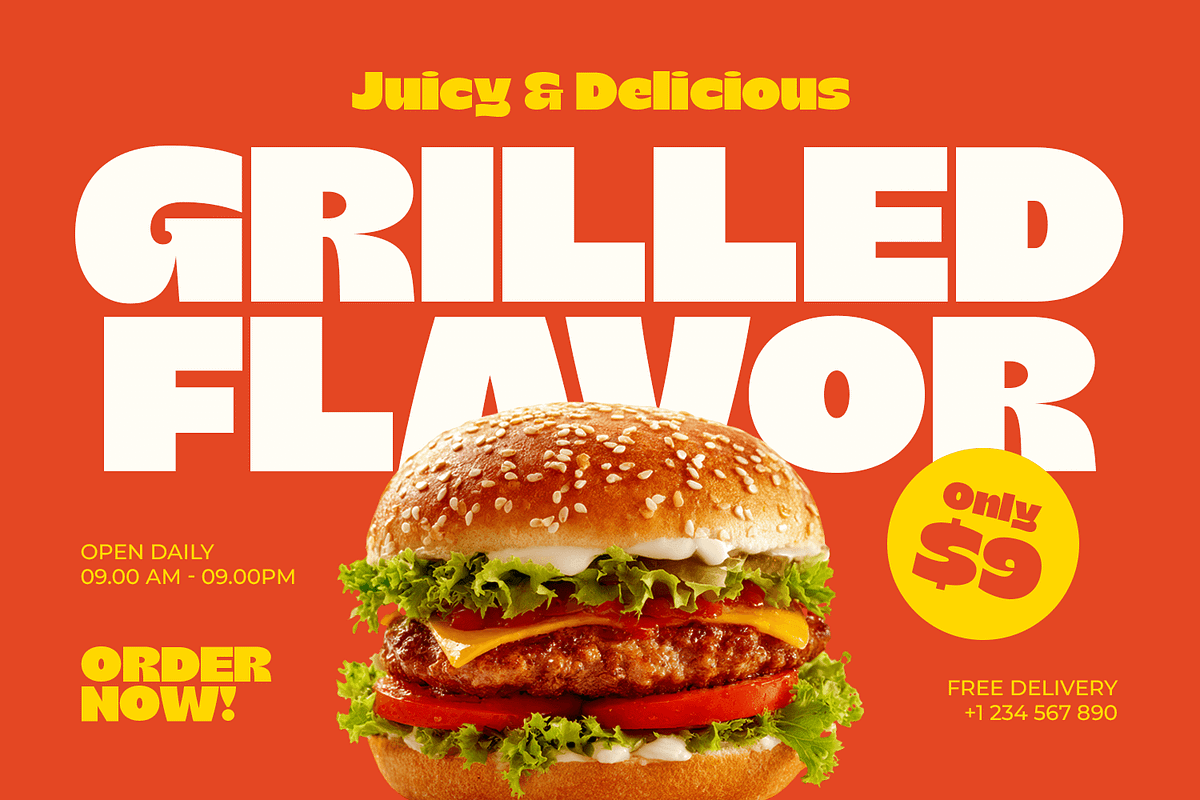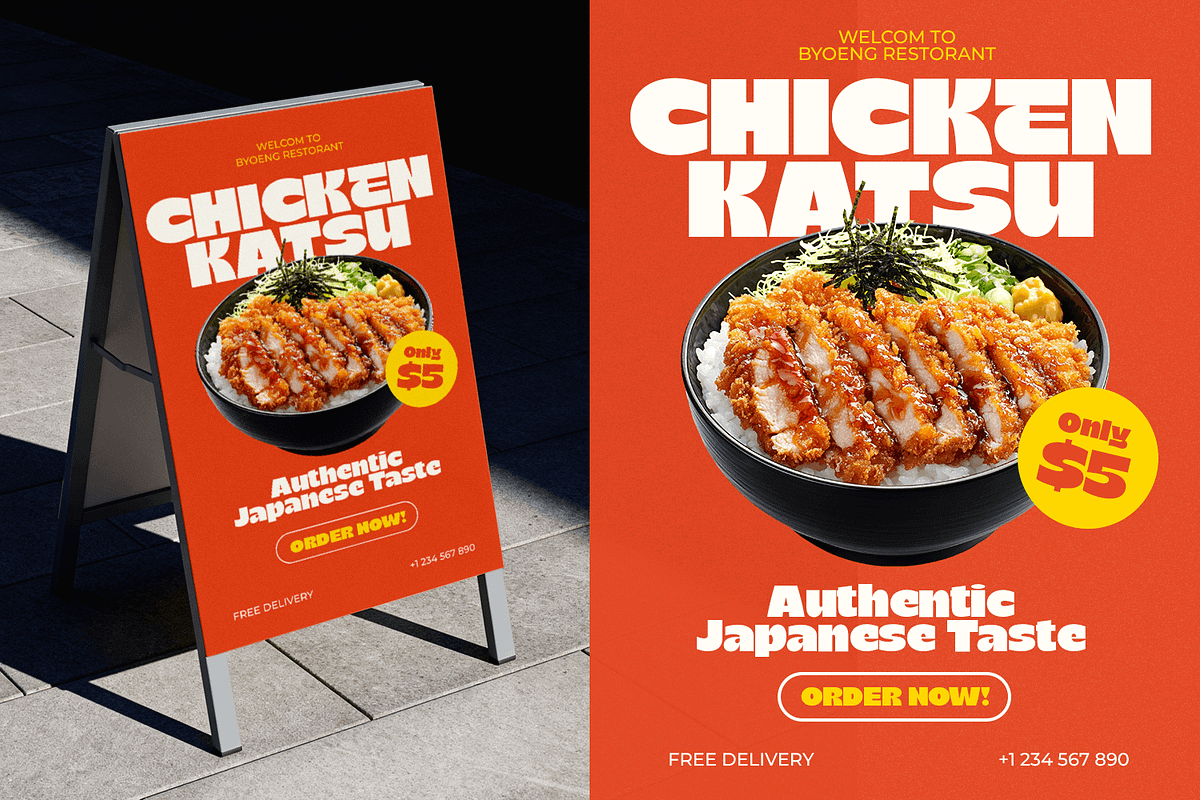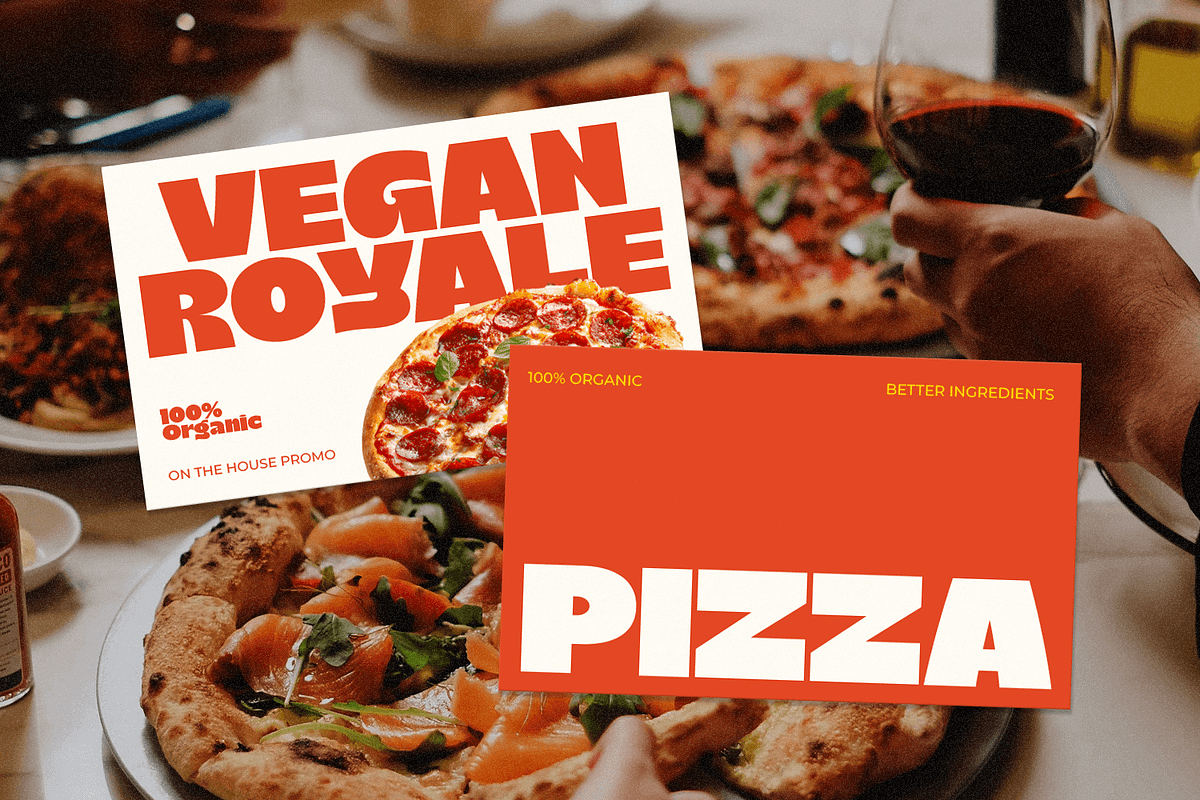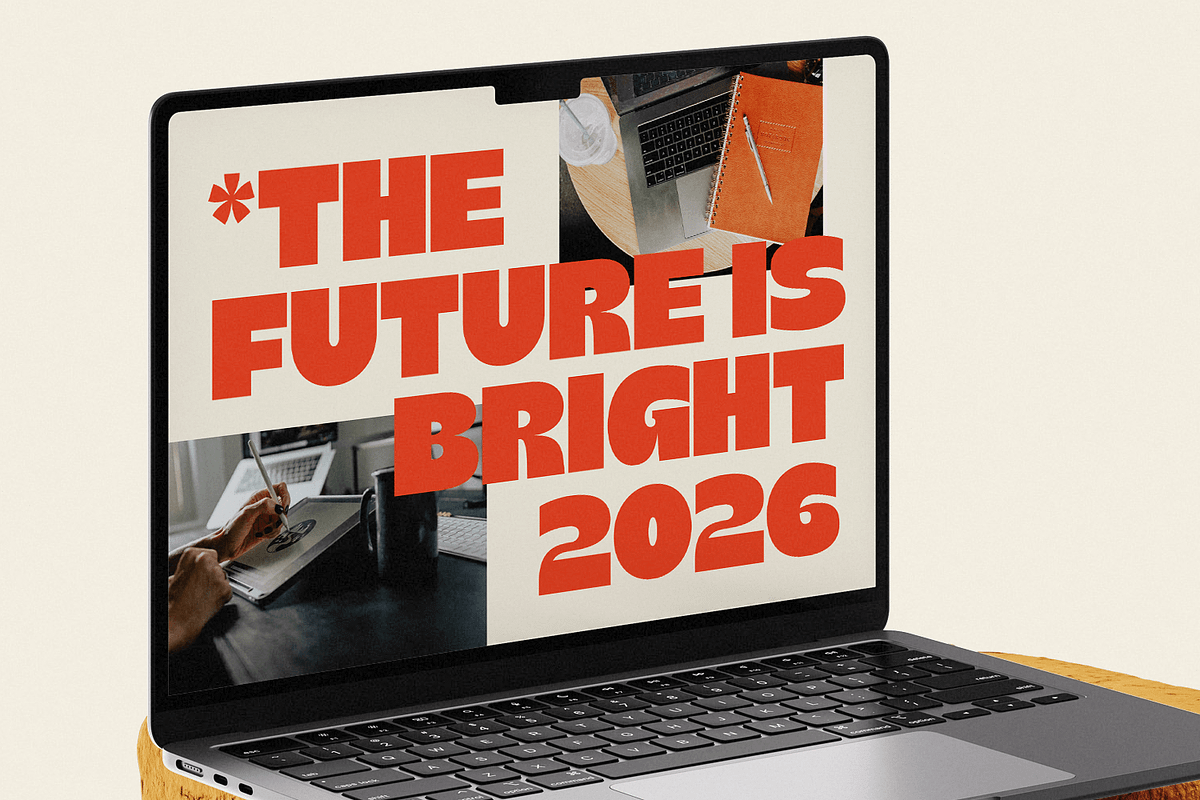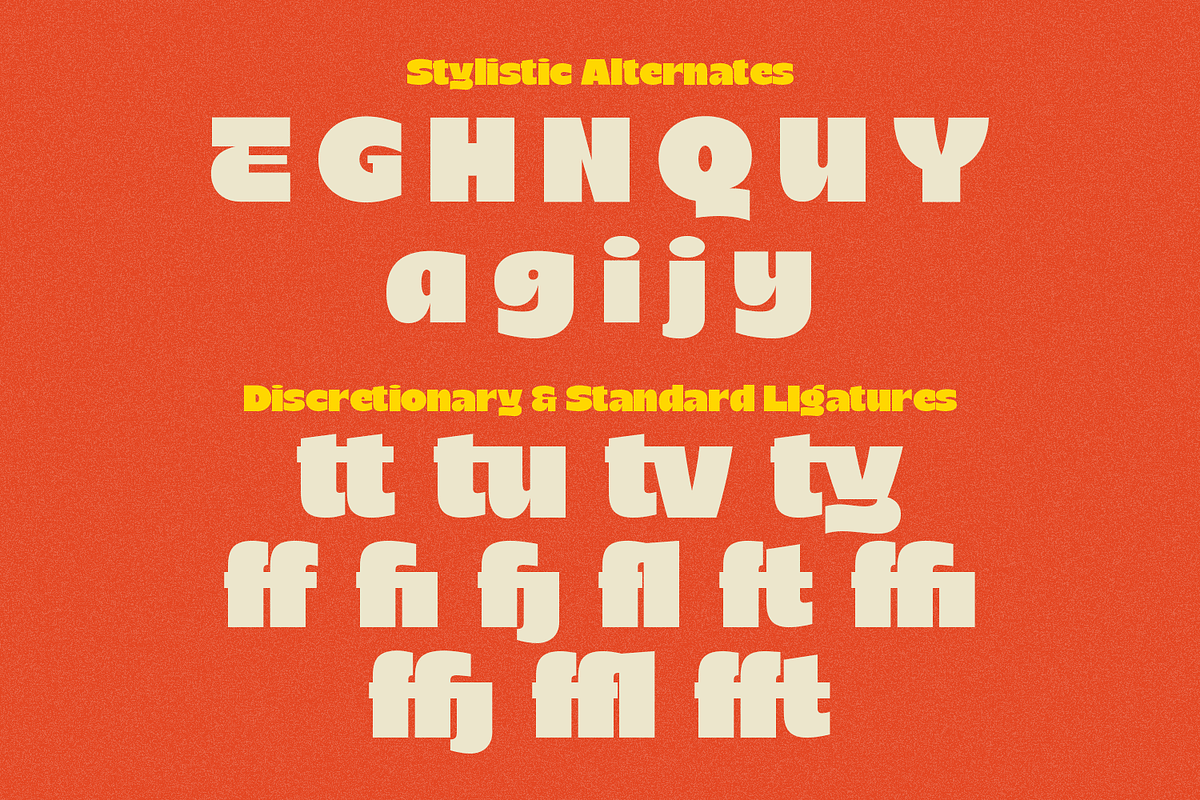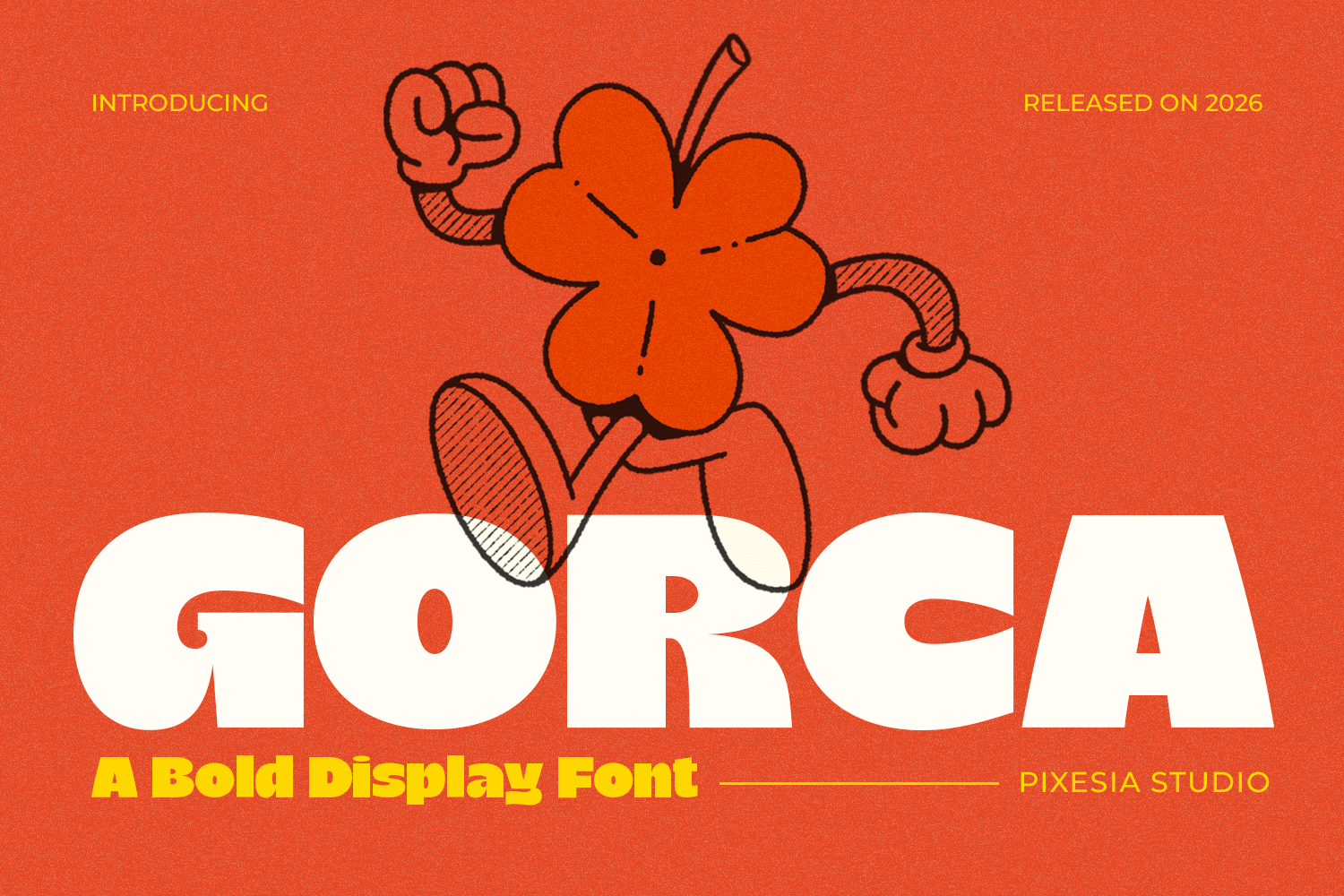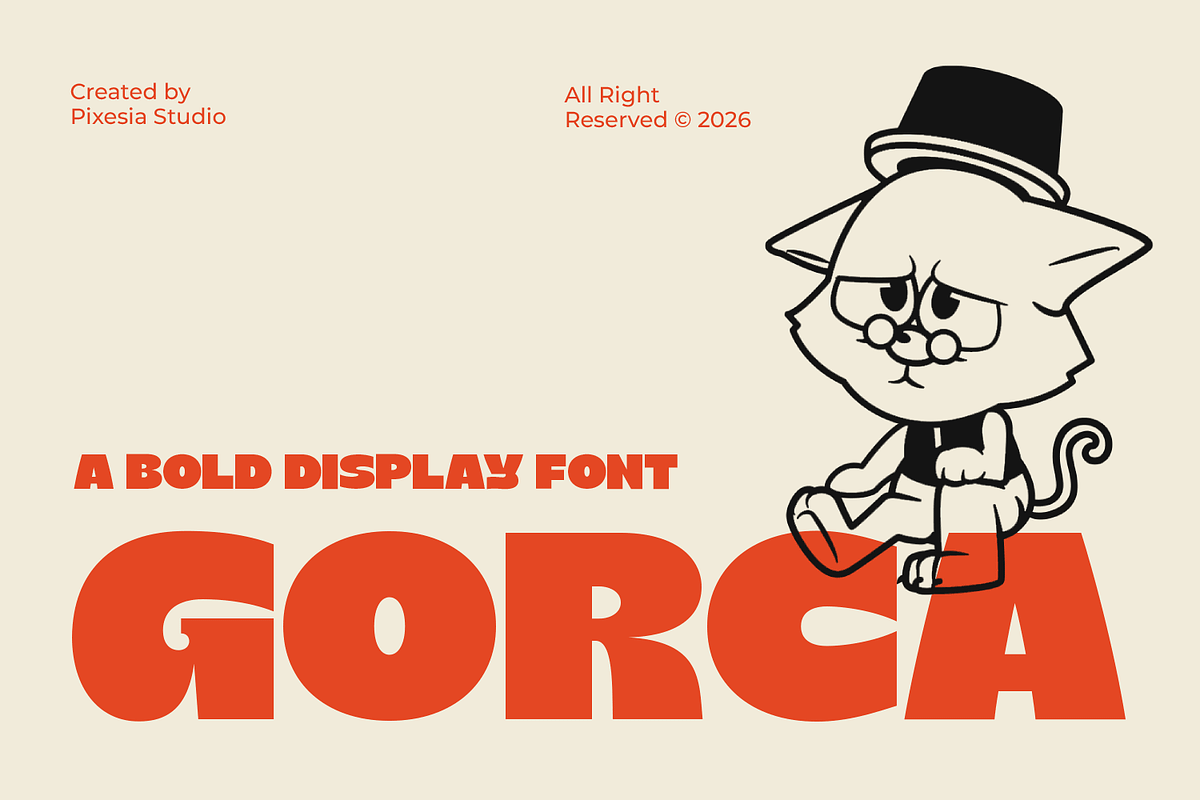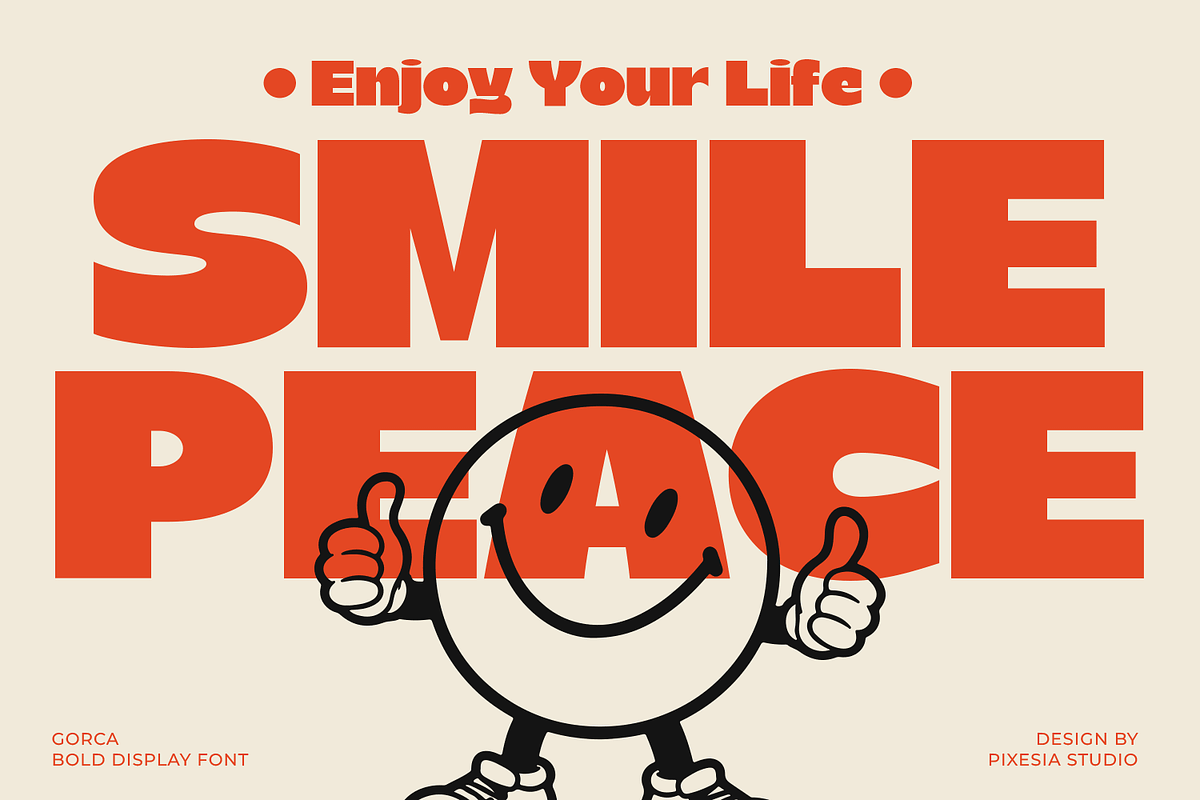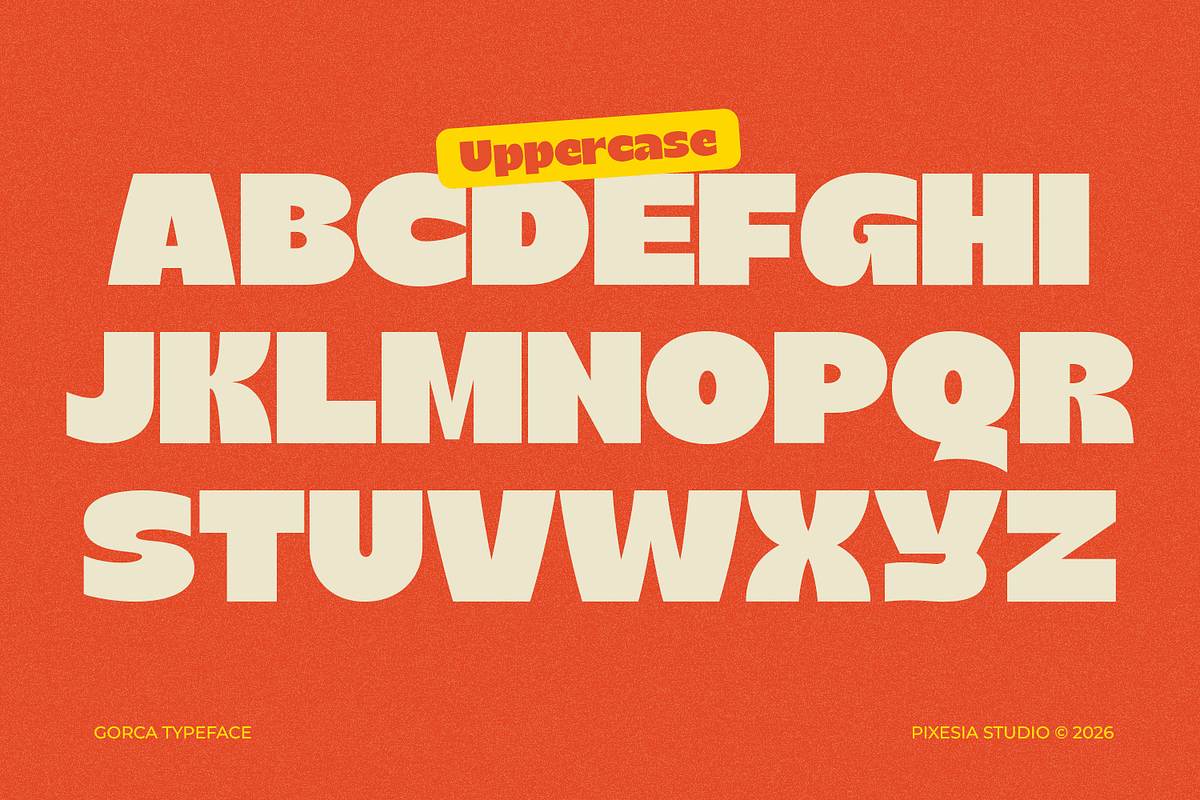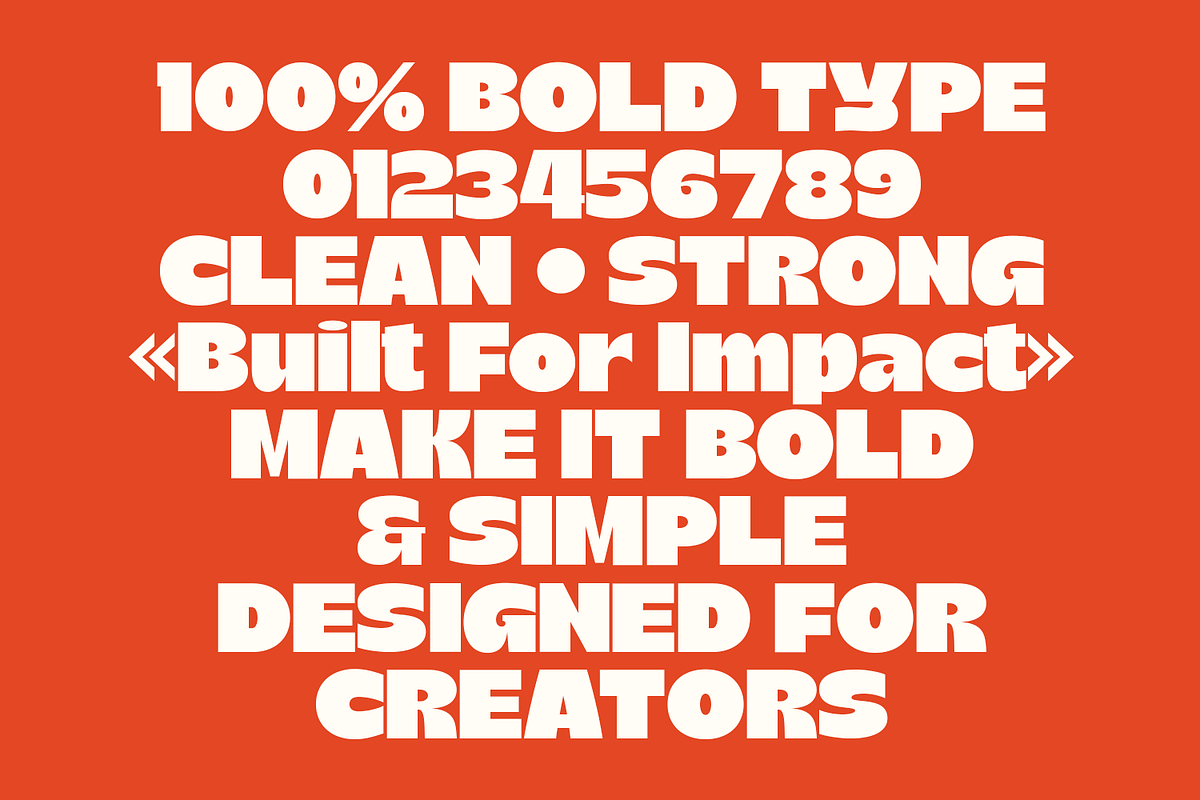
Gorca - Bold Display Font
Introducing Gorca - Bold Display Font
Gorca is a bold display font designed with thick, chunky letterforms and a playful retro attitude. Its strong structure and rounded shapes create a powerful visual presence while maintaining a fun and approachable personality. Inspired by vintage typography with a modern twist, Gorca brings energy and character to every composition.
Perfect for posters, branding, logos, packaging, headlines, advertising, editorial layouts and social media graphics, Gorca is ideal for designs that need to stand out. Whether you're creating bold headlines or expressive visual identities, this font delivers impact, clarity, and a vibrant retro feel.